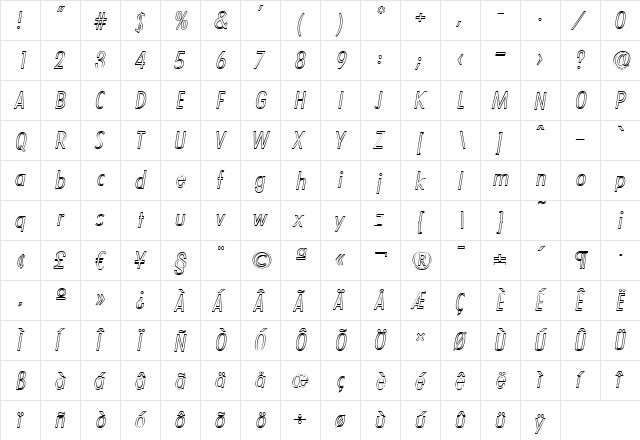
PeterBeckerCondOutline-Light Italic Font Preview
Design Context for PeterBeckerCondOutline-Light Typeface
PeterBeckerCondOutline-Light is built around its visual character rather than neutral utility — its distinctive forms are designed to make an impression at display sizes. Its italic angle brings a sense of urgency and motion to the letterforms. Its slender proportions lend an understated elegance to any composition.
Font Pairing: Pair with a clean neutral sans-serif for body copy to let PeterBeckerCondOutline-Light's character lead without overwhelming the composition.
Pro Tip: Treat PeterBeckerCondOutline-Light as the centrepiece of your typographic hierarchy. One strong heading set in a decorative face can carry an entire layout.